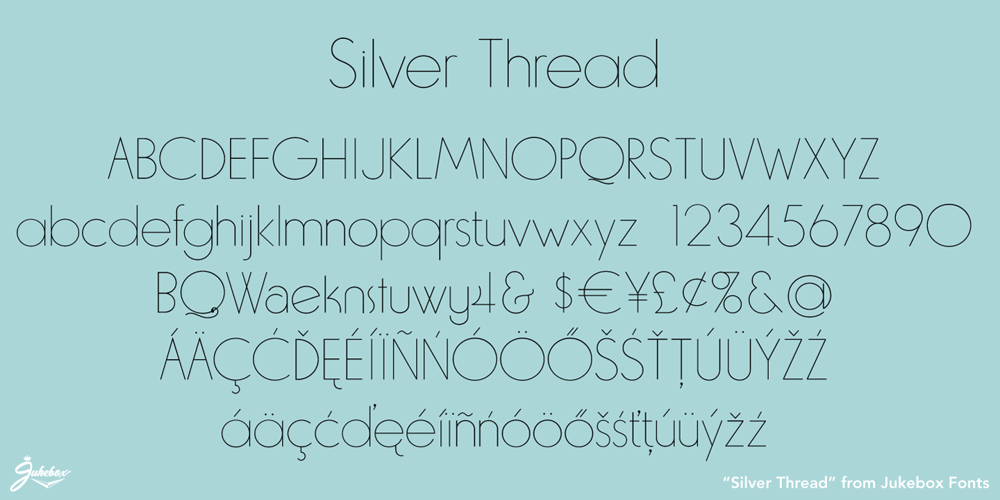
Silver Thread JF
Silver Thread JF font
Silver Thread JF Font Family was designed by Jason Anthony Walcott and published by Jukebox Collection. Silver Thread JF contains 1 styles and family package options. Silver Thread is a hairline thin geometric sans serif font with both art deco and 1970s elements to it. Perfect for any project that needs a typeface which evokes elegance and sophistication. Digitally revived from an older photo-typositing face, Silver Thread is named after a waterfall in eastern Pennsylvania. The font contains alternate versions of B, Q, W, &, a, e, k, n, s, t, u, w, y and 4 for added variety. They can be found under the Stylistic Alternates OT feature.Jukebox fonts are provided in OpenType .otf format and all fonts contain basic OpenType features as well as support for Latin-based and most Eastern European languages.